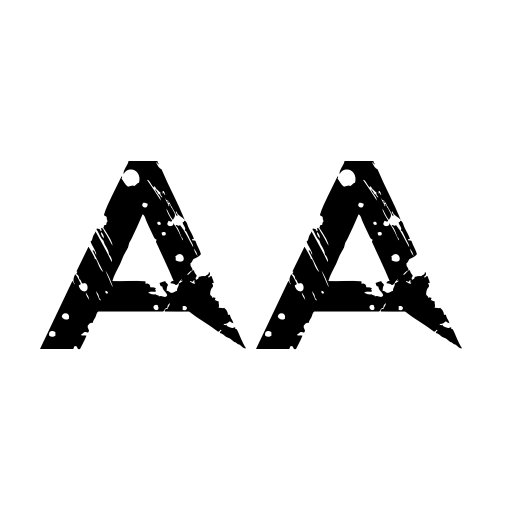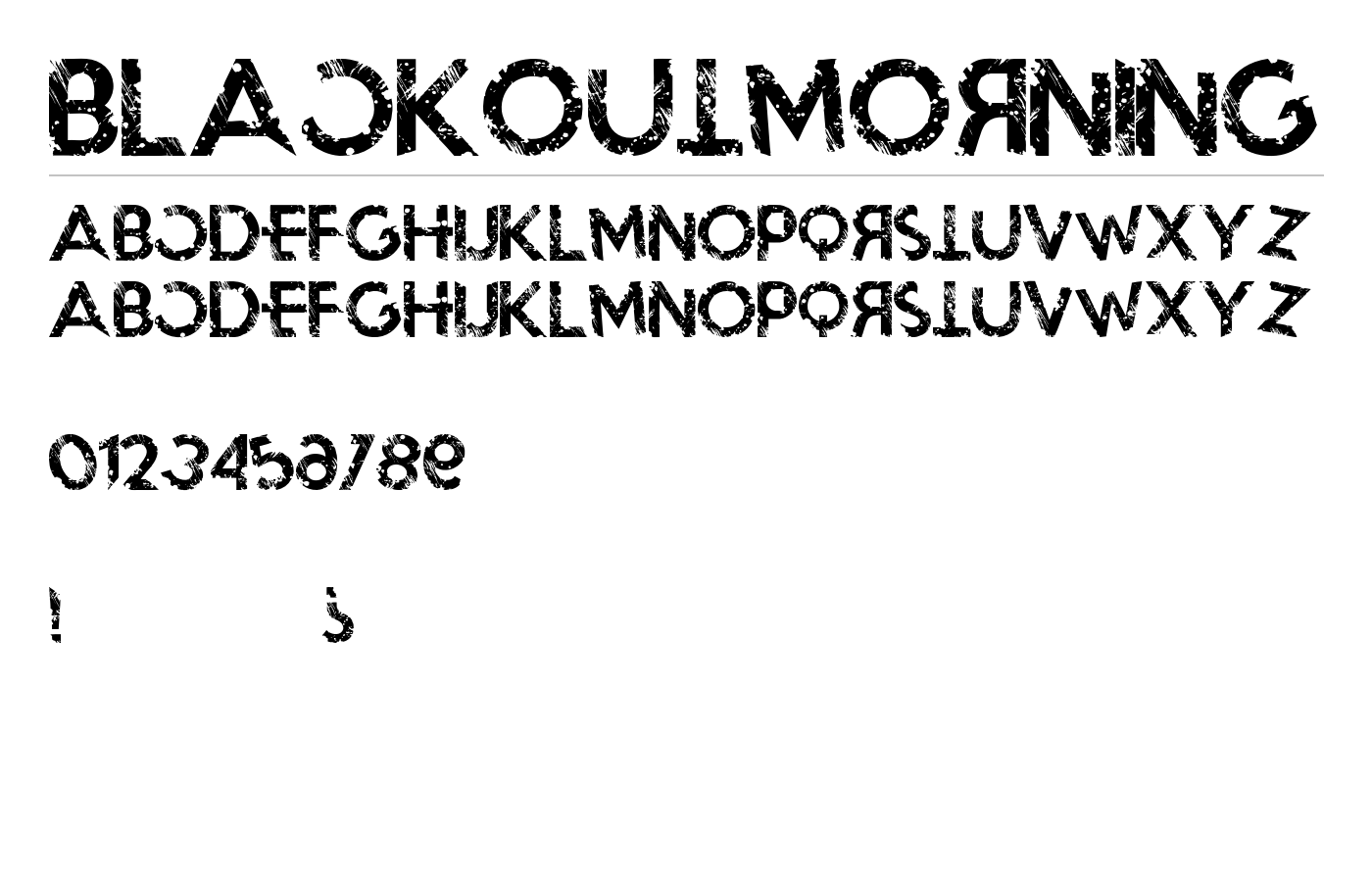
BlackoutMorning is a bold, distressed sans serif font with a grungy, weathered texture that gives it a raw and edgy feel. Its strong uppercase letterforms with uneven, textured edges make it ideal for striking headlines and creative projects that need a rugged, rebellious vibe. This font works best in posters, logos, and branding where a bold, urban, or alternative style is desired.
BlackoutMorning Font
About BlackoutMorning Font